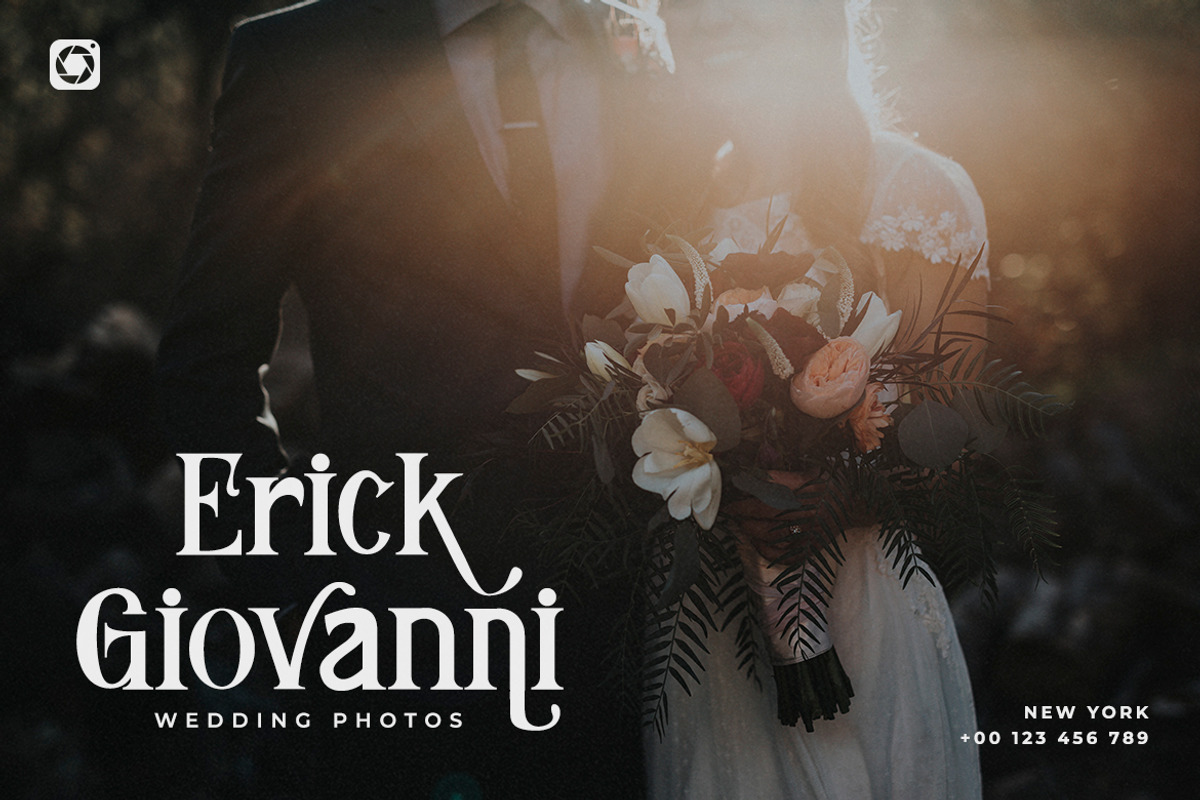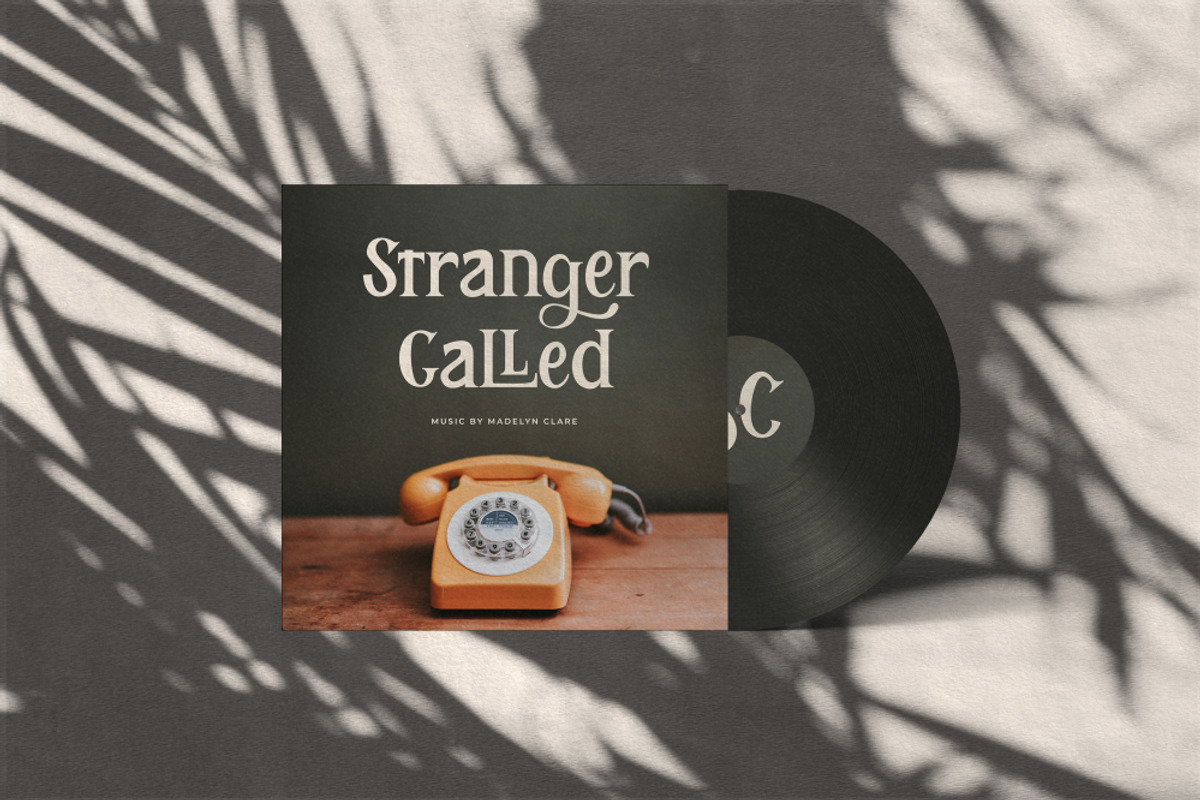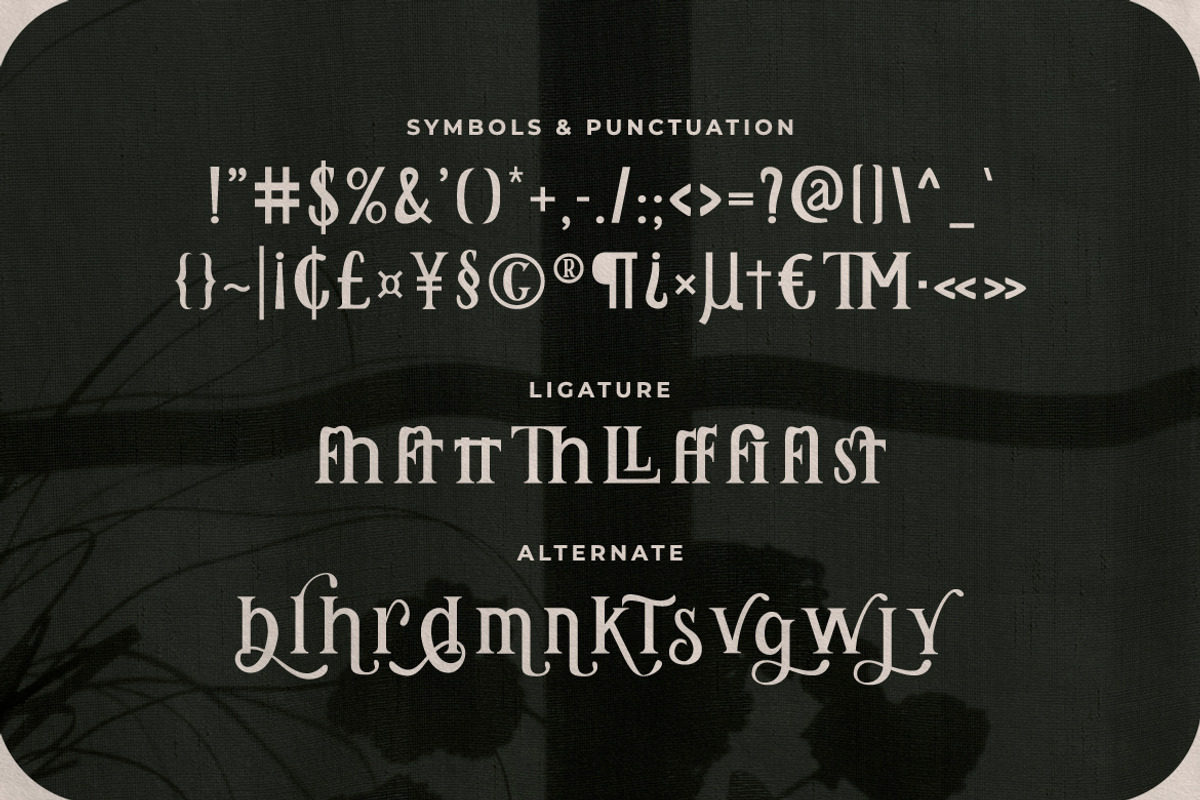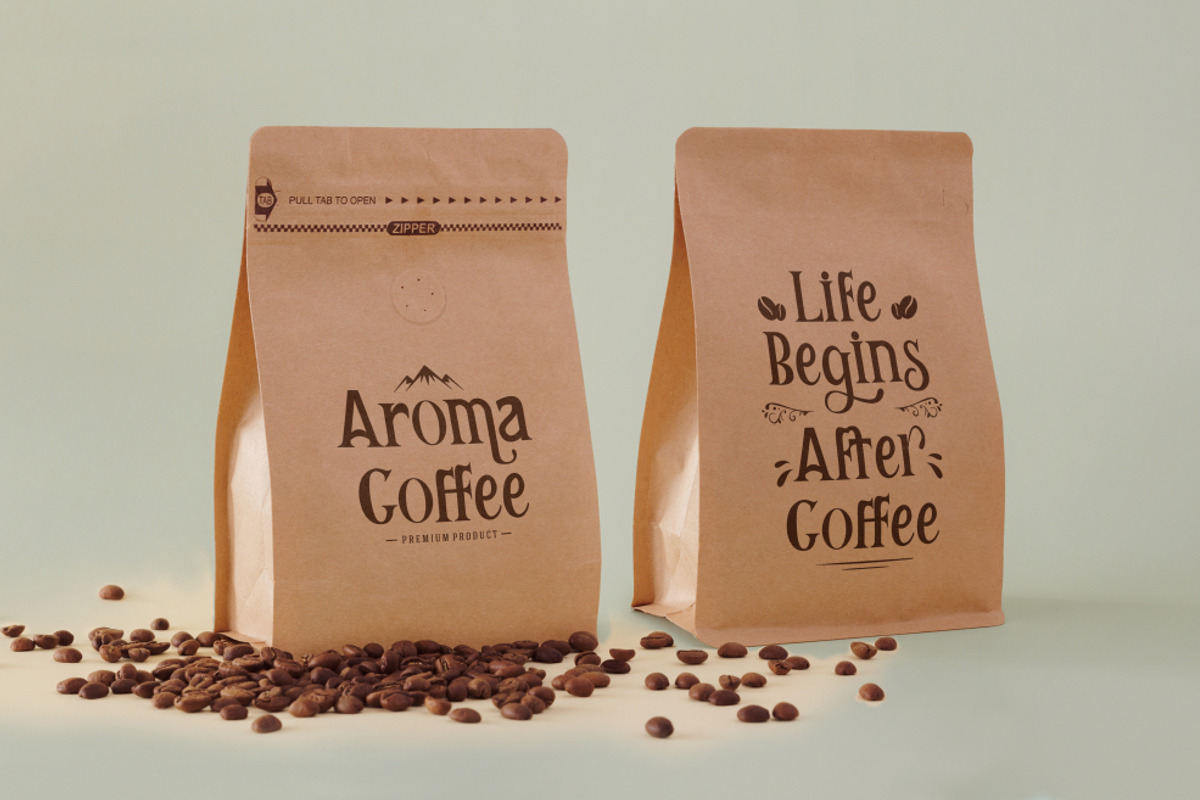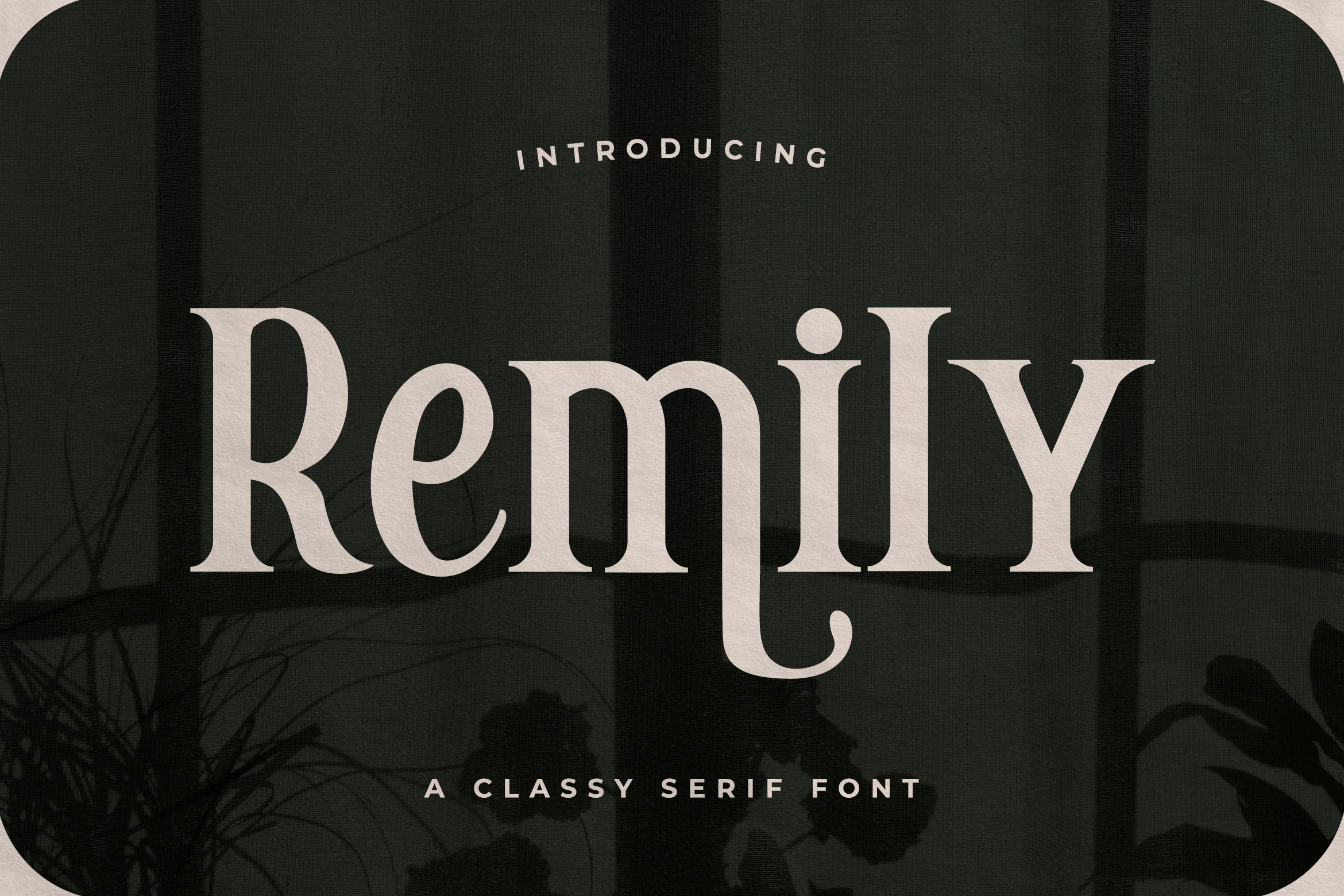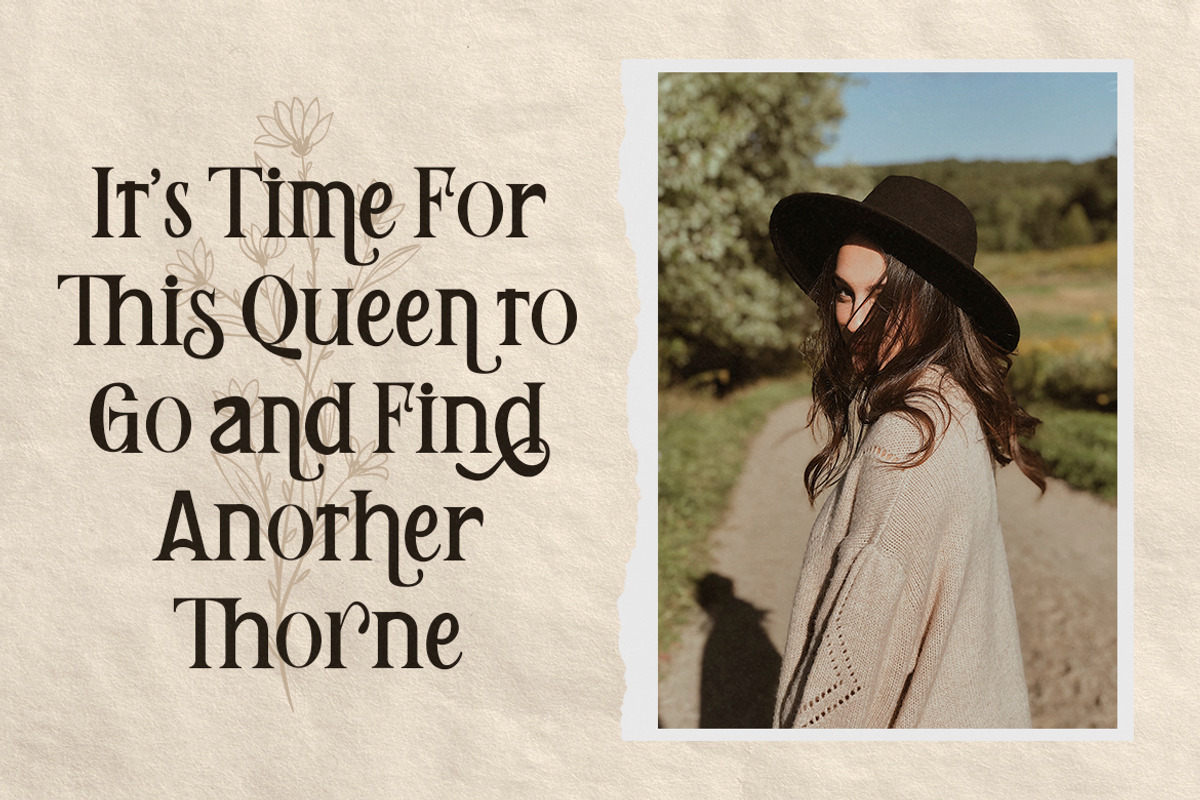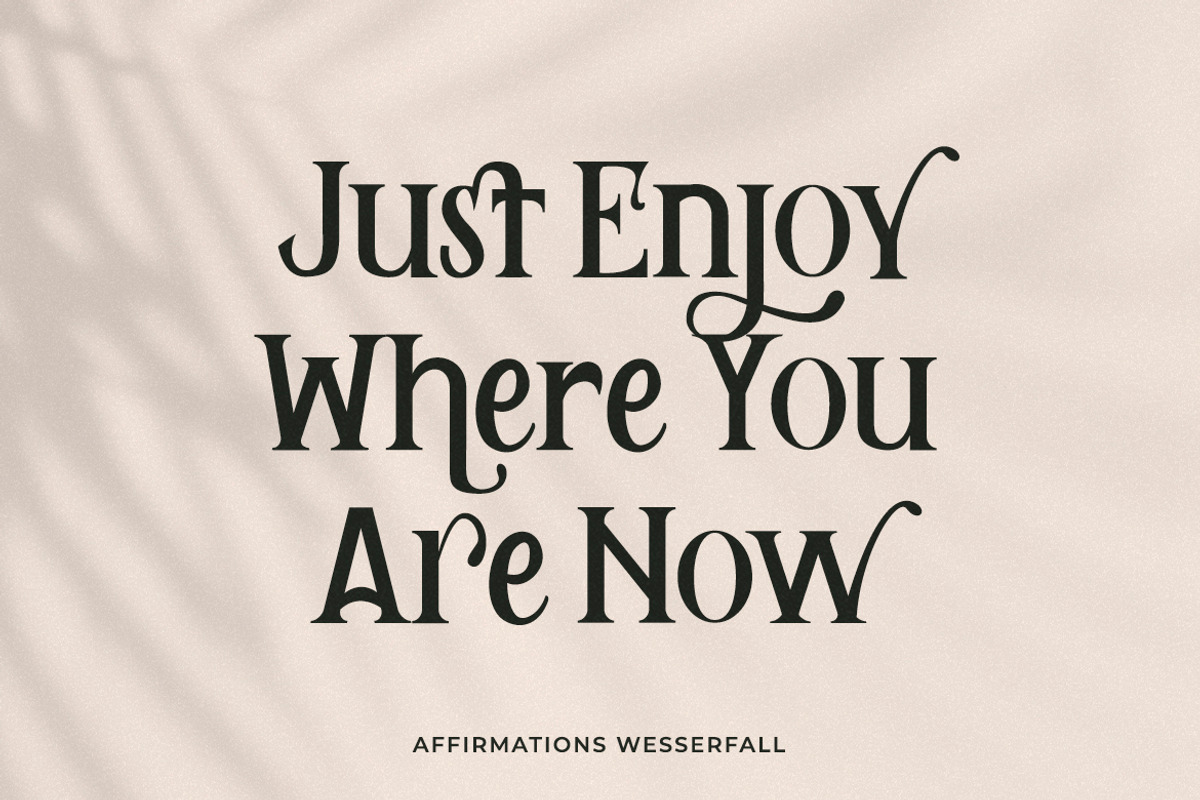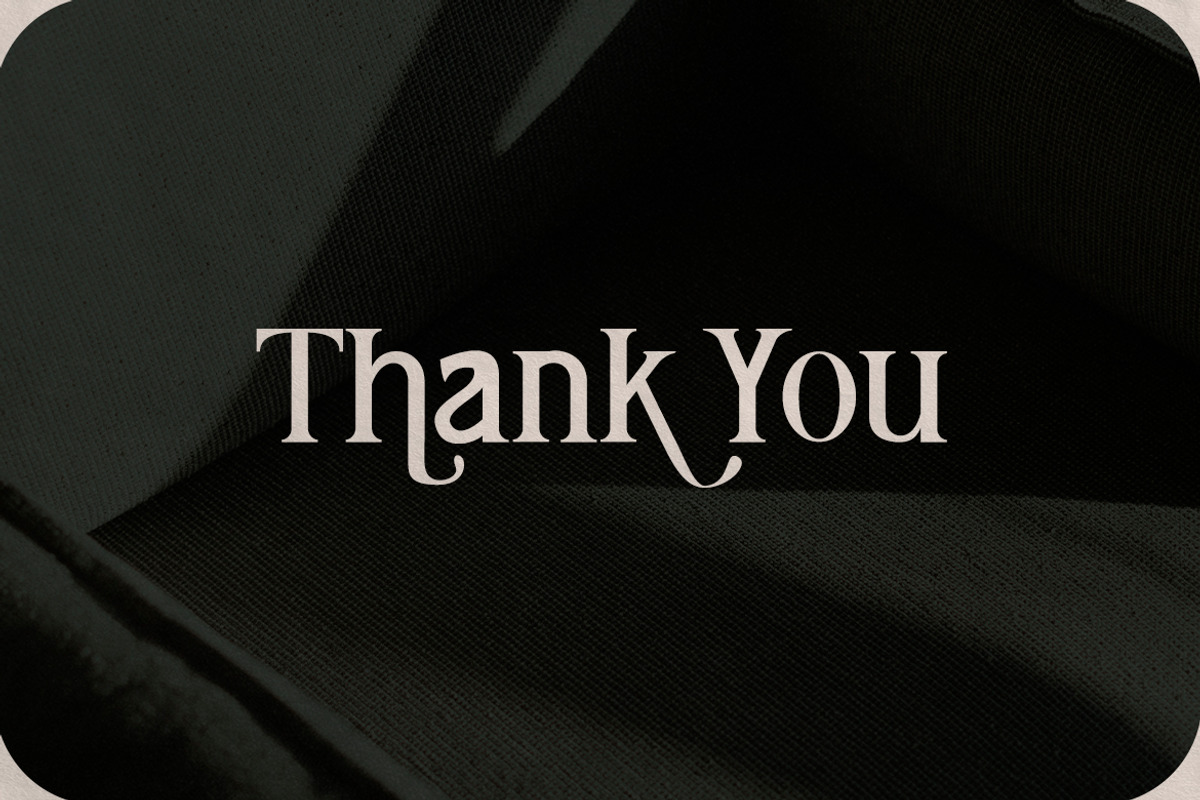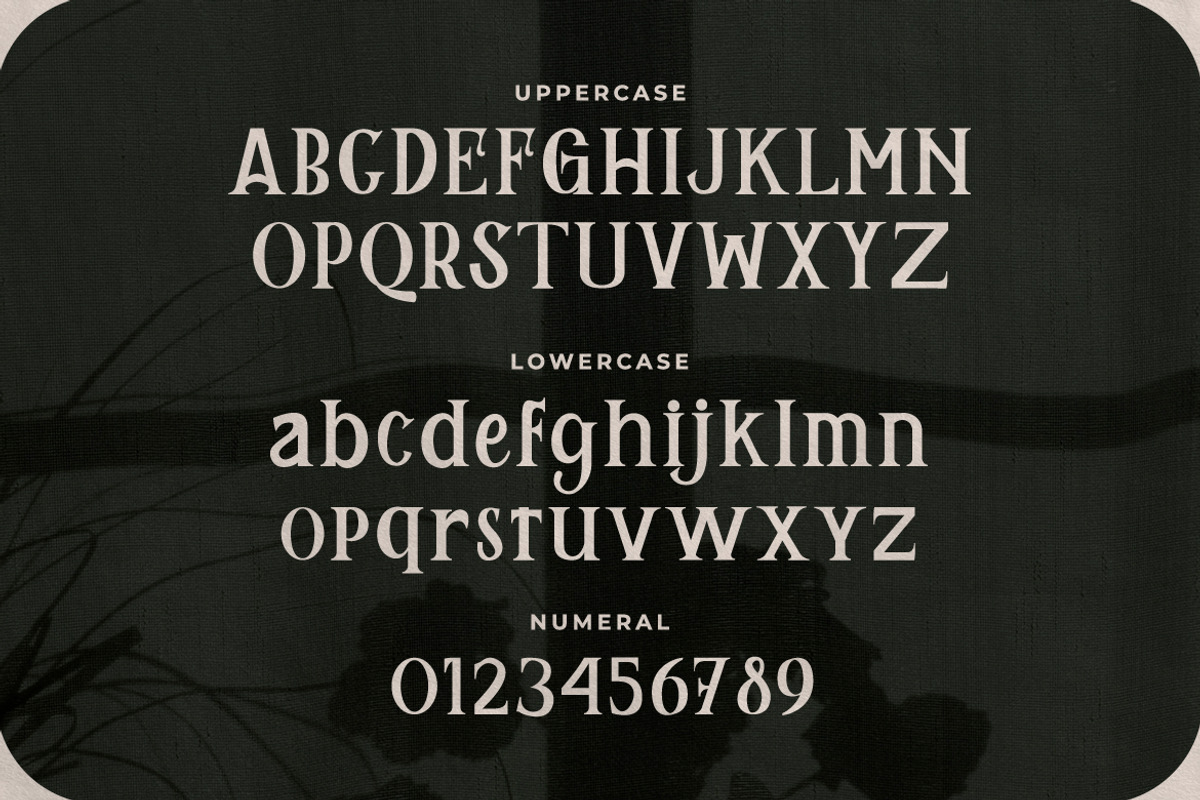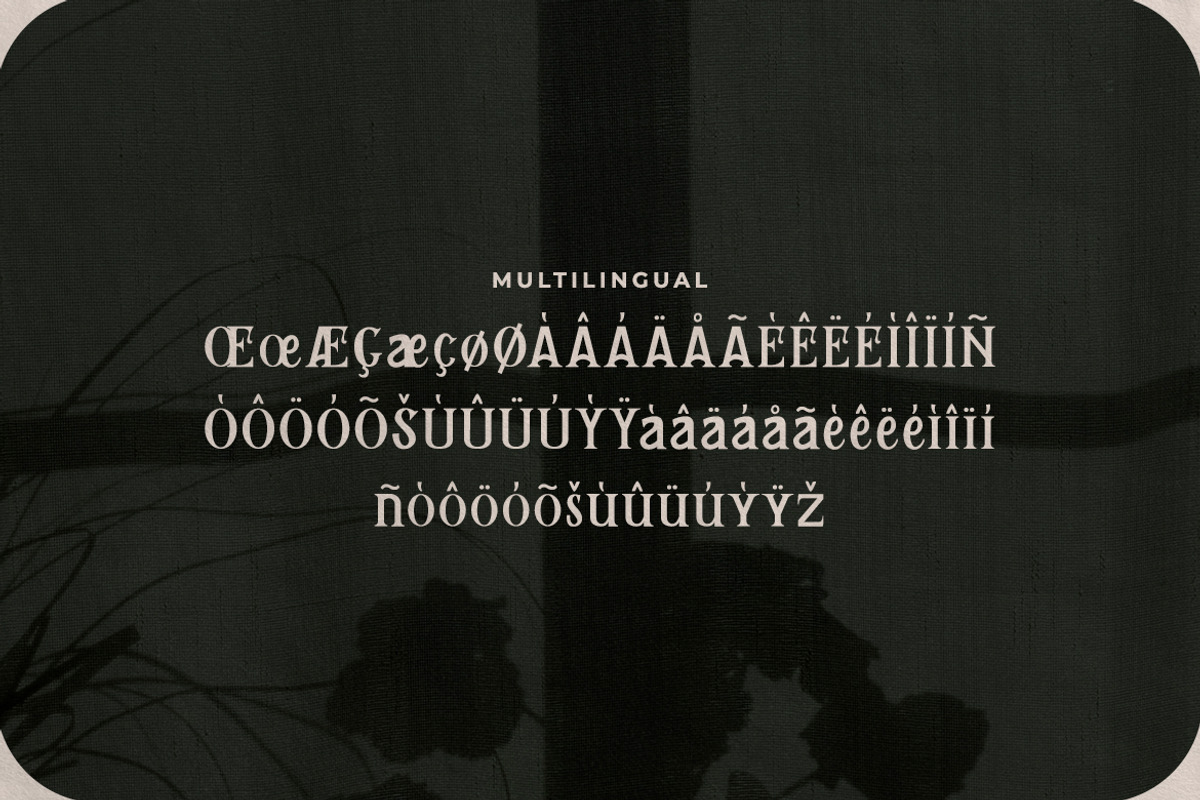
Remily - A Classy Serif Font
If you’re looking for a retro and unique font (One which will bring all sorts of happiness to any project) the Remily font is just for you. It combines a sense of classic, cuteness, elegance and vintage which makes it distinctive enough to give any project life and energy. It’s a gorgeous font which can be used beautifully for wedding invitations, eye-catching social media posts, cute greeting cards and much more.
- Symbols & Punctuation
- Numeral